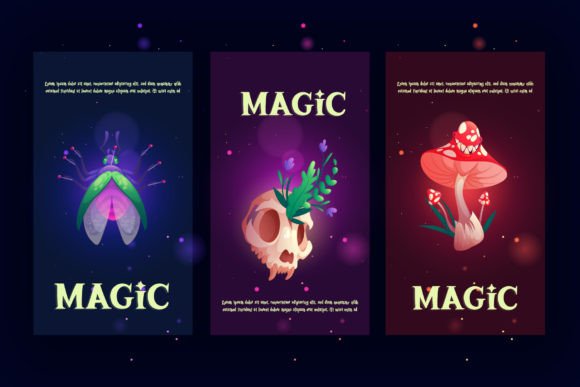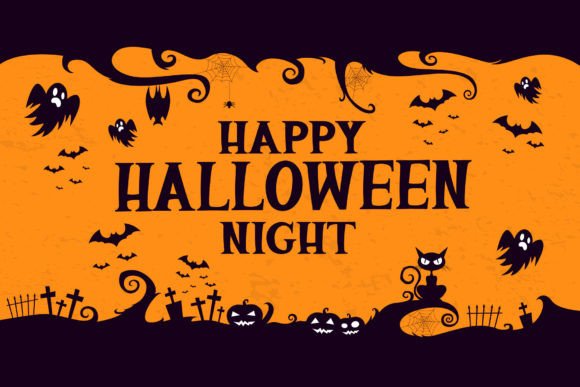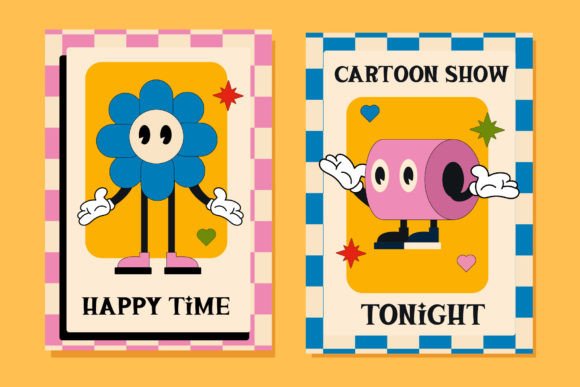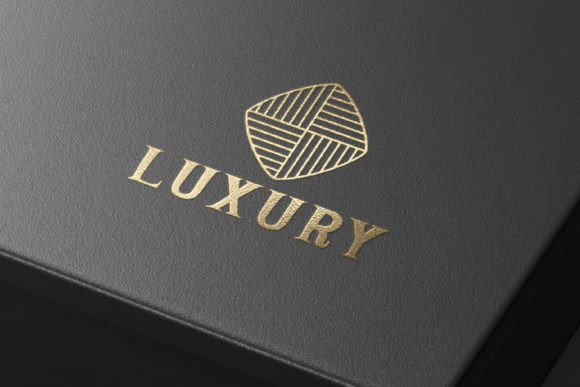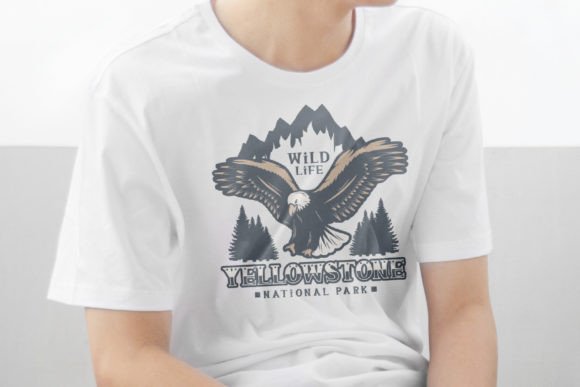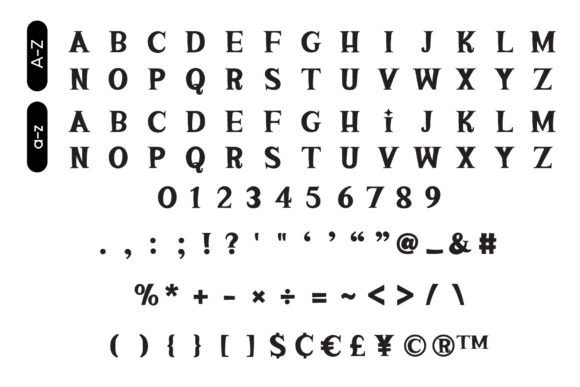
Introduction to Fox Wizard Font
Have you ever been working on a creative project and stumbled upon that perfect font that just elevates the entire design? For many designers, that moment is pure magic. It’s when the pieces come together, and the project starts to feel truly special. For me, that moment came when I discovered the Fox Wizard Font – a vintage and cool slab serif font that has been a game-changer in my design workflow.
With its unique blend of modern and classic elements, the Fox Wizard Font is a valuable addition to any designer’s library. Whether you’re working on a publication, creating a logo, designing business cards, or printing on t-shirts, this font has the potential to make your project stand out. And the best part? It’s available for free download, making it an accessible design resource for creatives of all levels.
One of the things that sets the Fox Wizard Font apart is its versatility. From its high-quality design to its transparent background options, this font is perfect for a wide range of creative projects. Whether you’re working on a simple business card or a complex publication, the Fox Wizard Font is an incredible asset that’s sure to elevate your design and leave a lasting impression.
Key Features of Fox Wizard Font
- High-quality, professional font design perfect for creative projects and design resources.
- Features a transparent background, allowing for seamless integration into any design project.
- Includes a range of unique characters and glyphs, including international characters and symbols, to cater to diverse design needs.
- Designed at a high resolution of 300 DPI, ensuring crisp and clear text output.
Honest Review: Fox Wizard Font
As a designer, I’m always on the lookout for high-quality design resources to elevate my creative projects. Recently, I came across the Fox Wizard Font, and I was excited to give it a try.
First impressions: the Fox Wizard Font is a unique and quirky font that’s perfect for adding a touch of whimsy to your designs. The font is highly customizable and comes in a range of styles, from bold and playful to elegant and sophisticated.
What works well: ✨ The Fox Wizard Font is incredibly versatile and can be used for a wide range of creative projects, from logos and branding to social media graphics and web design. The font also comes with a transparent background, making it easy to overlay on images and other design elements.
Limitations: ⚠️ One of the main limitations of the Fox Wizard Font is that it’s a free download, which means it may not be as polished or refined as some of the paid fonts out there. Additionally, the font may not be suitable for all types of projects, particularly those that require a more serious or formal tone.
Overall, I was impressed with the Fox Wizard Font and would definitely recommend it to designers looking for a unique and high-quality design resource. With a little bit of creativity, this font can add a lot of personality to your designs.
- Unique and quirky design
Tips for Getting the Most Out of Fox Wizard Font
To get the most out of the Fox Wizard Font, use it with a transparent background to give your design a clean and modern look. You can also experiment with different font sizes and colors to create a visually appealing effect.
Common Use Cases for Fox Wizard Font
The Fox Wizard Font is ideal for use in logos, branding materials, and other creative projects that require a unique and eye-catching design. Its high-quality design makes it a popular choice among designers and artists.